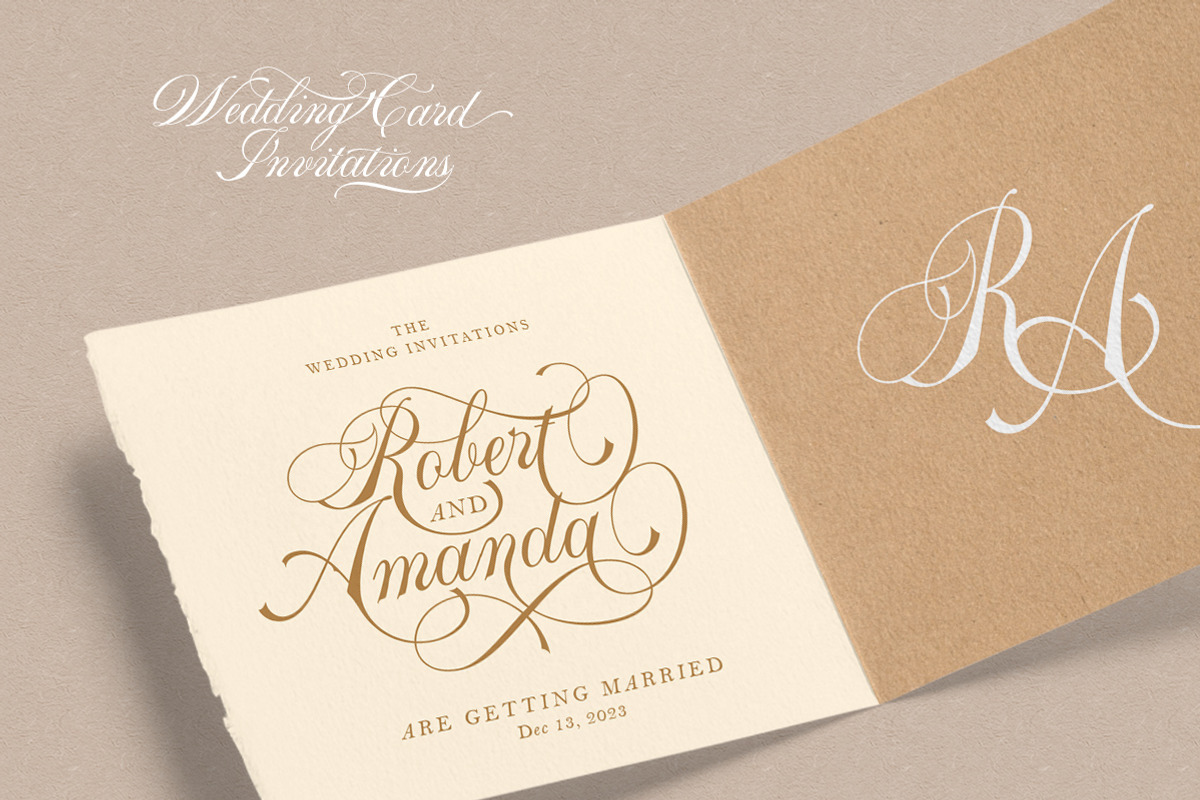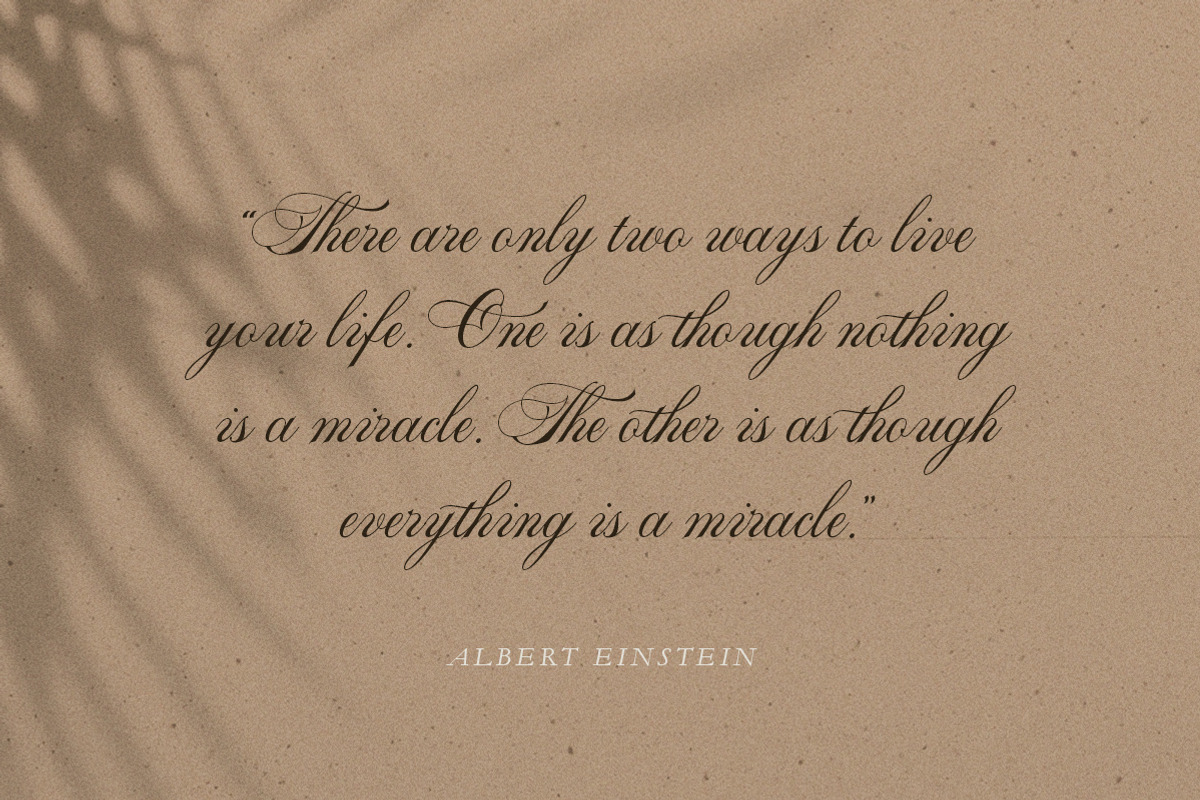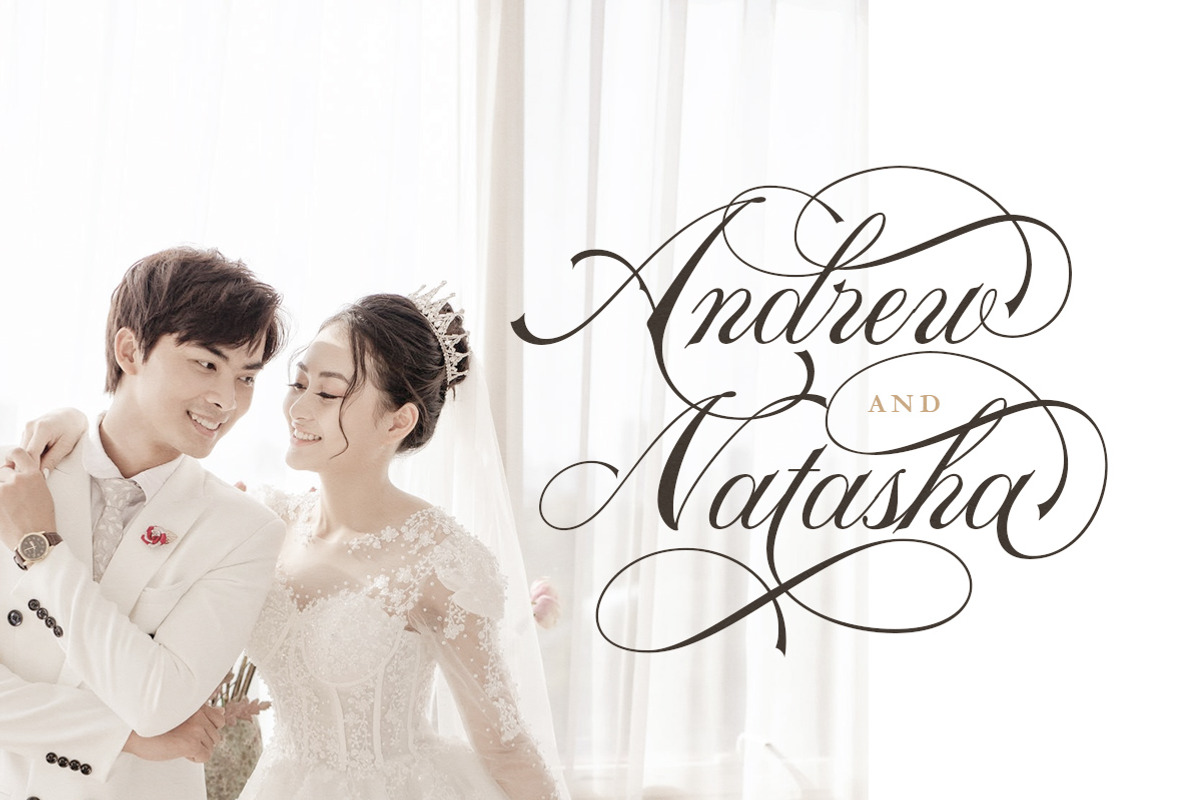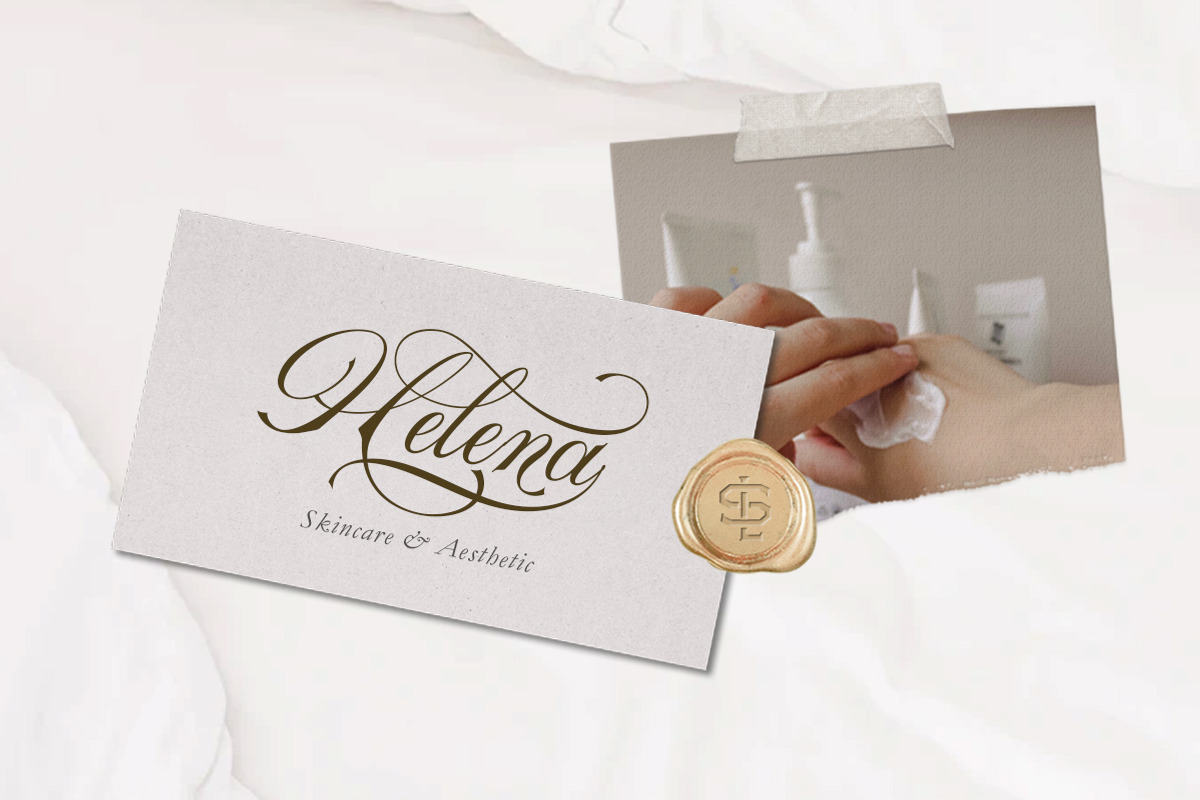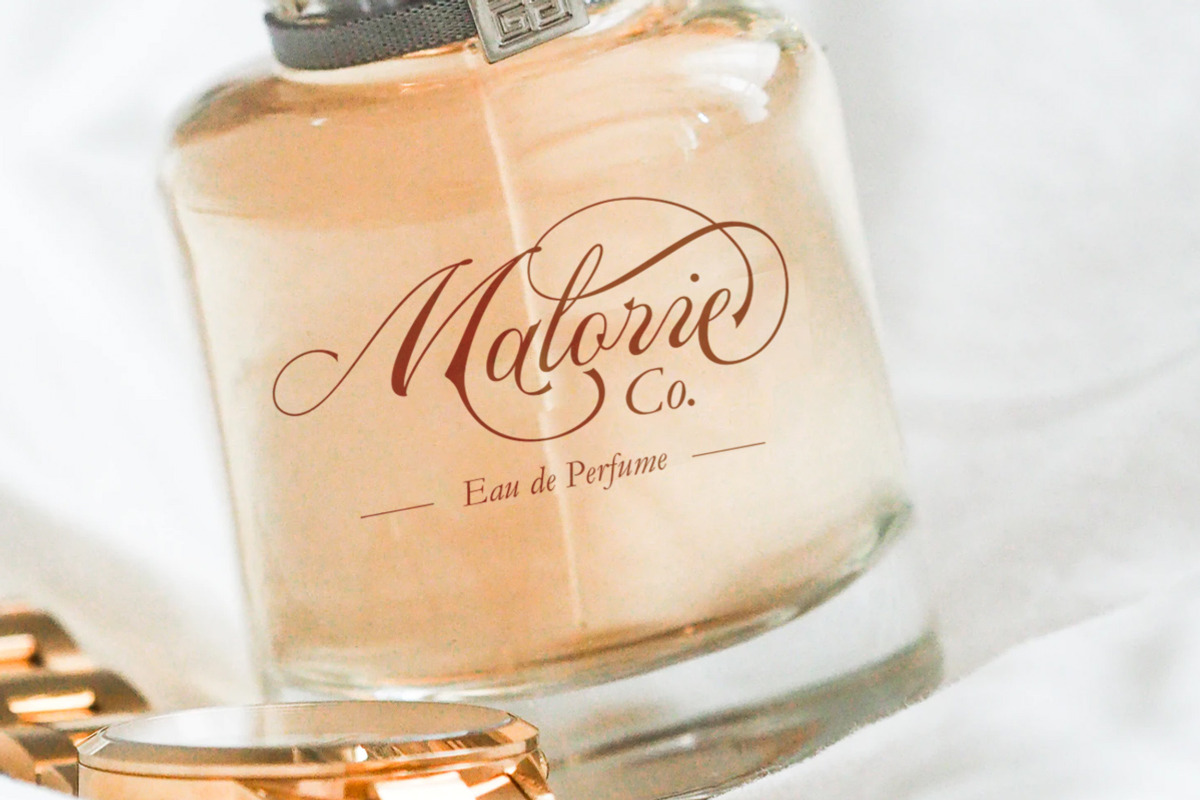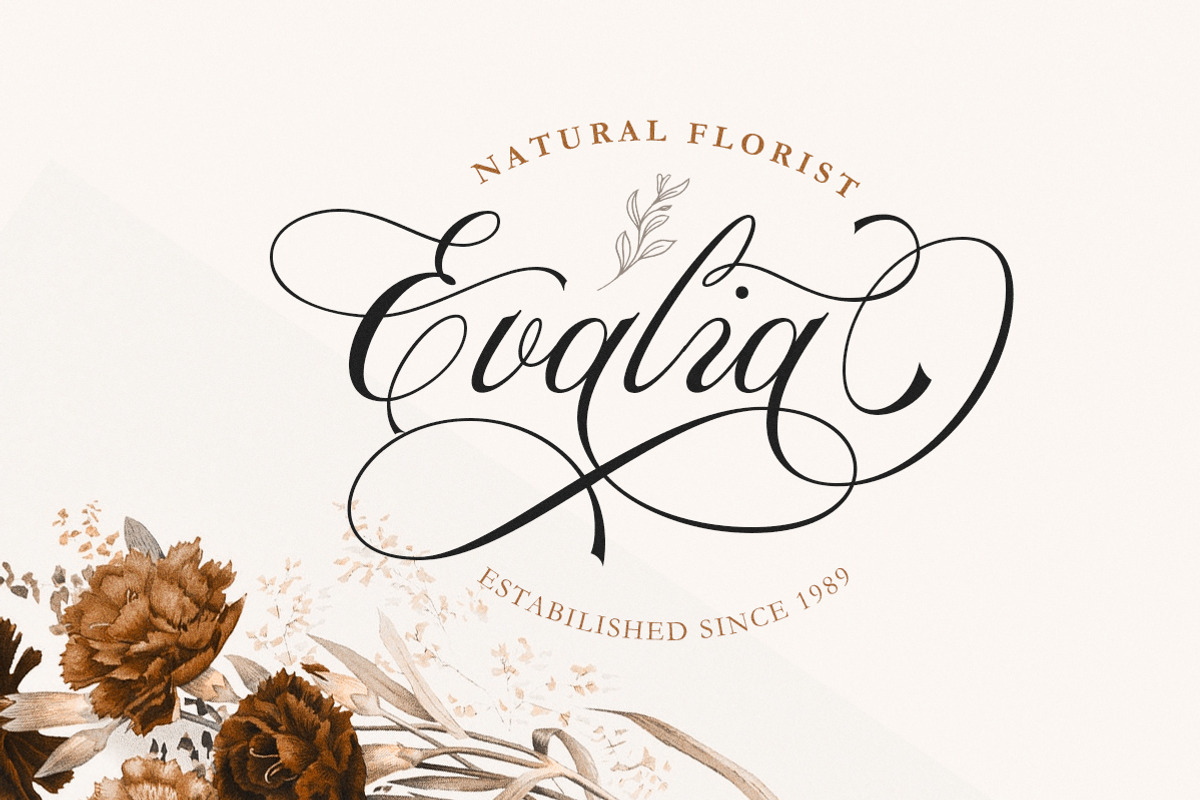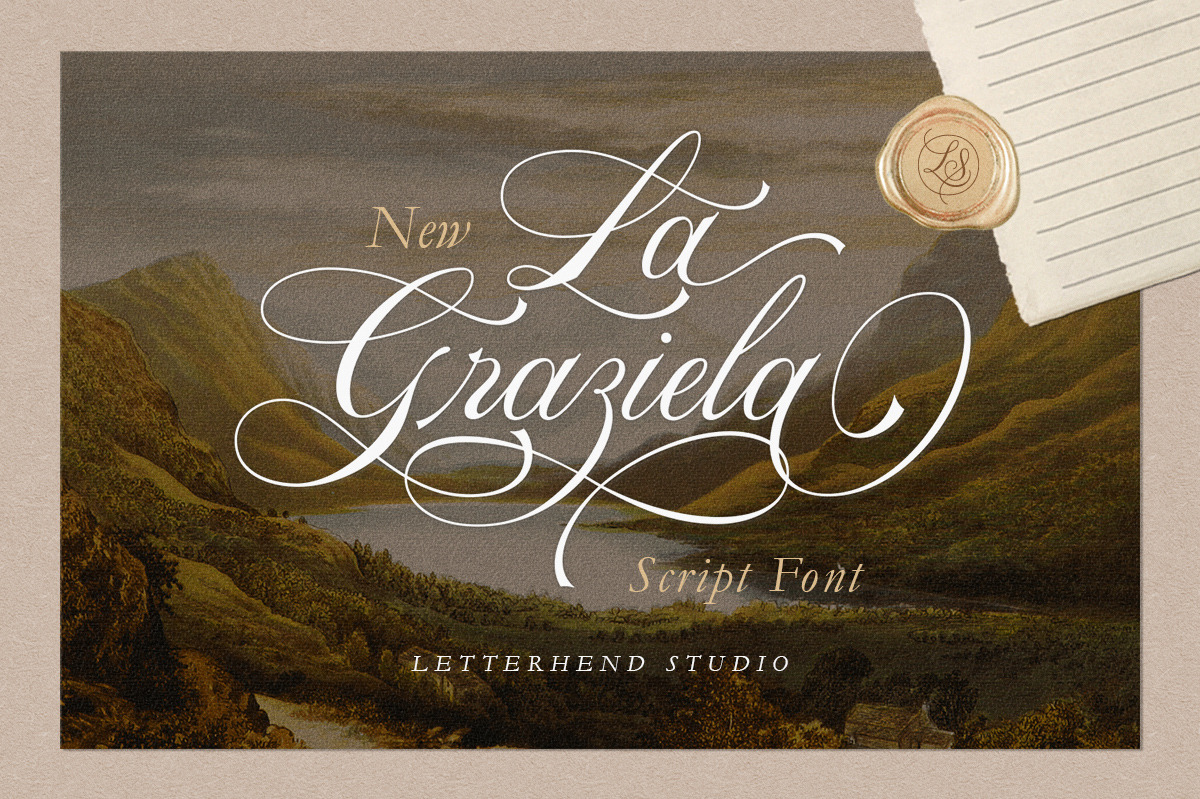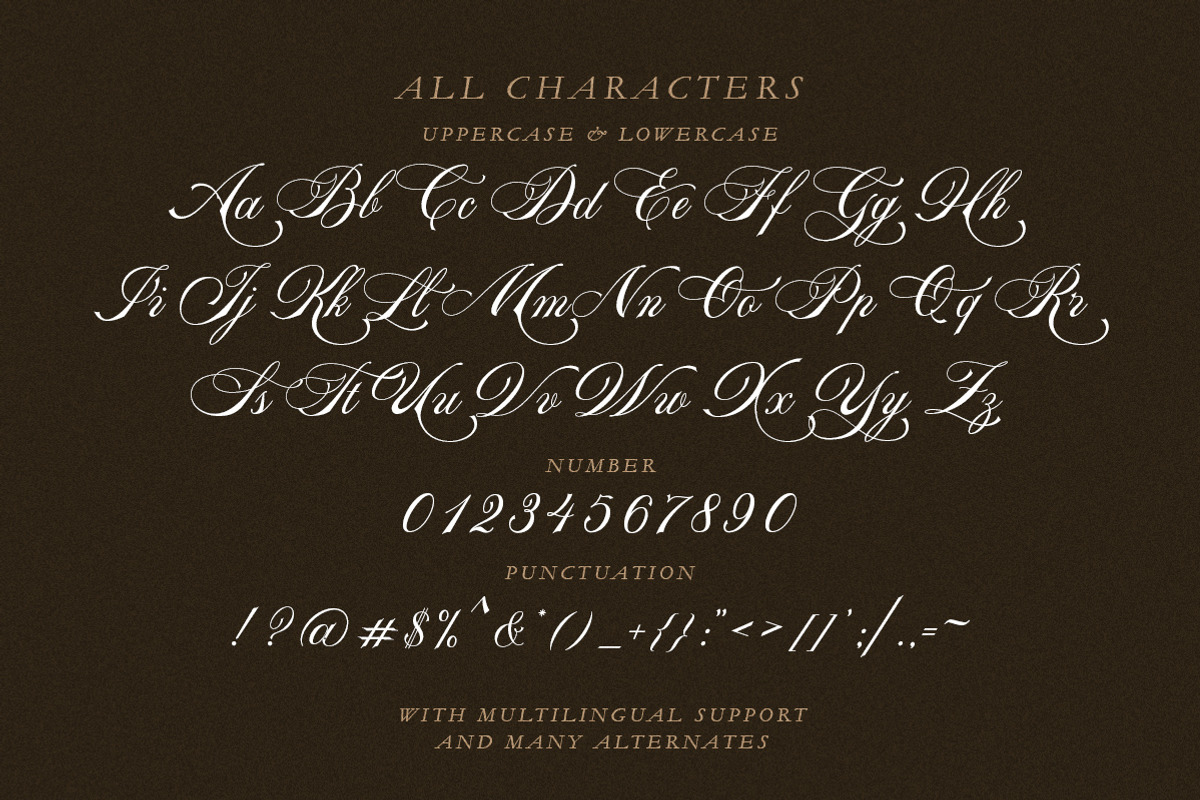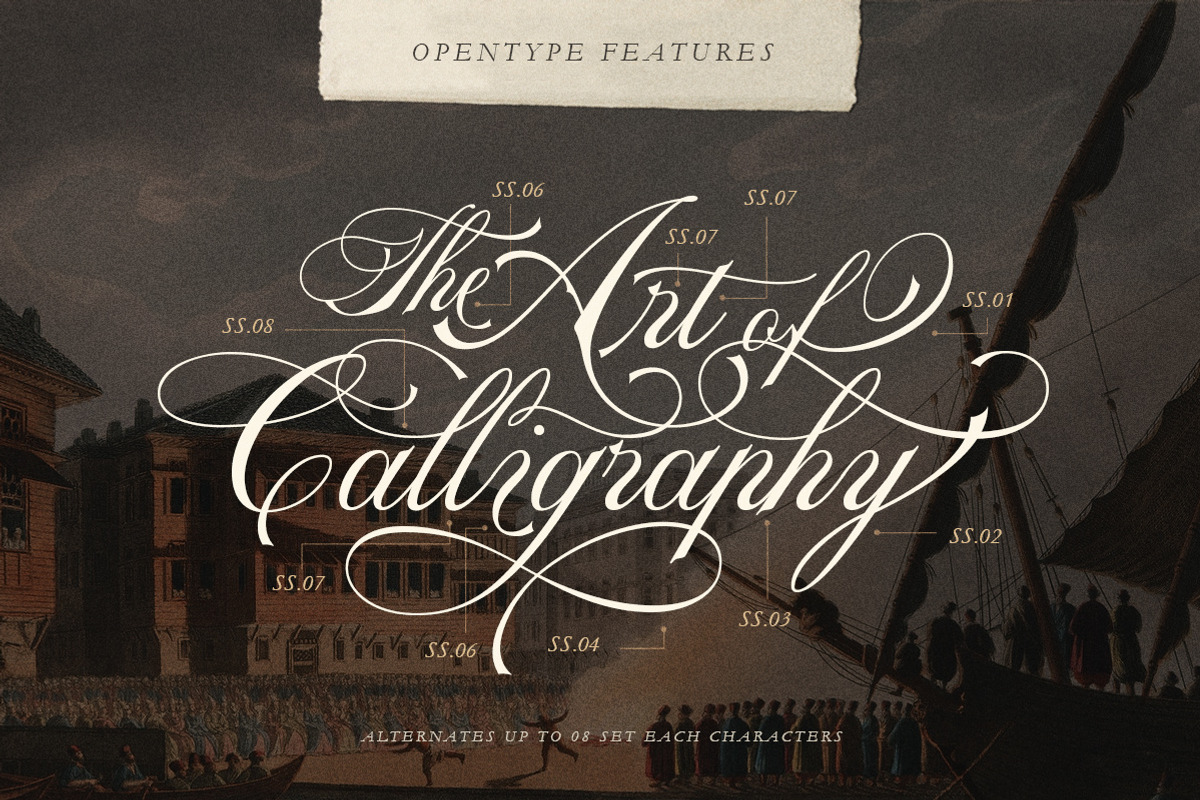
La Graziela - Copperplate Font
Please welcome our newest script typeface, La Graziela. A Beautiful and classy script that has many swashes that allows you to create beautiful lettering instantly. it has many stylistic set alternates that you can choose from.
This font perfectly made to be applied especially in logo, and the other various formal forms such as invitations, labels, logos, magazines, books, greeting / wedding cards, packaging, fashion, make up, stationery, novels, labels or any type of advertising purpose.
- alternates
- swashes